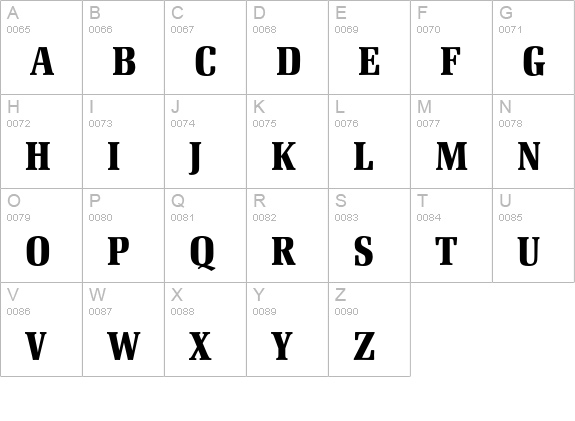
Melior* Condensed Bold Font Details
Melior* Condensed Bold is a strong, high-contrast, condensed-width variant in the Melior* typeface family \xE2\x80\x94 well suited to headlines, attention-grabbing titles, and strong calls-to-action.
Melior Condensed Bold is a striking and impactful font that exudes modernity and sophistication. Its bold weight makes it perfect for headlines and titles, grabbing attention and making a bold statement. The condensed design adds a sleek and streamlined look, ideal for saving space and creating a contemporary aesthetic. This versatile font is free to download at FontsMarket.com, offering designers and creatives the opportunity to enhance their projects with a professional and stylish typeface without any cost. Whether used for print materials, digital designs, or branding projects, Melior Condensed Bold is sure to make a lasting impression with its strong and confident appearance. Elevate your designs with this free font and unlock endless creative possibilities.